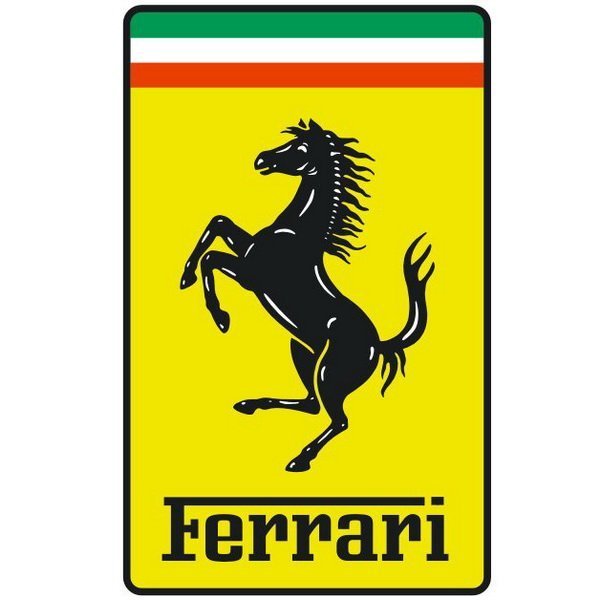
Ferrari is a famous Italian sports car manufacturing company founded by Enzo Ferrari in 1929. Ferrari is world famous for its racing car manufacturing which are being used in differing racing competitions like Formula One.
The logo of the Ferrari company consists of the famous Cavallino Rampante, a black prancing stallion on a yellow shield. It has also three stripes of green, white and red colored at the top along with the stylized “Ferrari” at the bottom. Probably Ferro Rosso by Michael Hagemann is quite similar to the font in the logo. It is a slab serif family logo used in “Ferrari” font. You can get the font for free from here.